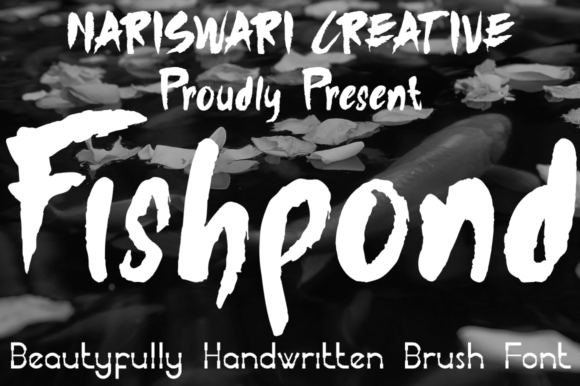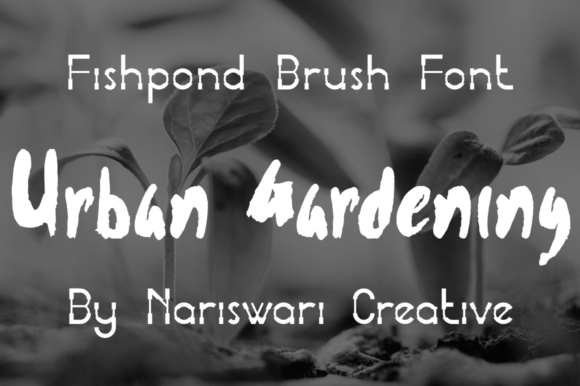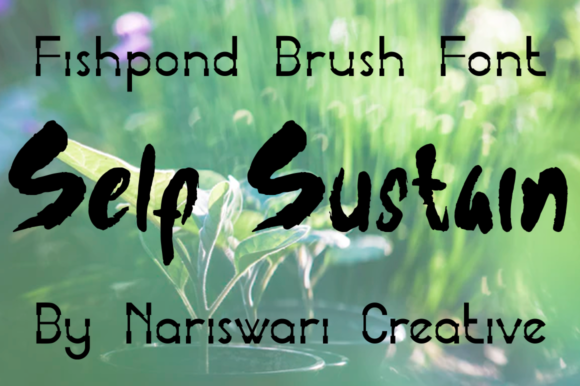
Fishpond Font
About Fishpond Font
Fishpond sounds like an intriguing and unique handwritten font that can add a touch of simplicity and creativity to various design projects. Let’s explore some creative ways to use Fishpond font and bring your ideas to life:
1. Book Titles: Use Fishpond font for book titles or chapter headings to create a visually appealing and engaging cover design.
2. Handmade Product Labels: Apply Fishpond font to design labels for handmade products, adding a personal and artistic touch to the packaging.
3. Artistic Posters: Create artistic posters with Fishpond font, combining it with illustrations or photography to convey a distinct and creative message.
4. Children’s Book Illustrations: Use Fishpond font in children’s book illustrations to evoke a sense of playfulness and capture the attention of young readers.
5. DIY Craft Projects: Incorporate Fishpond font in DIY craft projects, such as handmade greeting cards, scrapbooking, and gift tags.
6. Social Media Graphics: Apply Fishpond font to your social media posts and graphics to create a unique and eye-catching visual identity.
7. Nature-Themed Designs: Use Fishpond font in designs related to nature, wildlife, or outdoor activities, accentuating the natural and organic feel.
8. Journaling: Add Fishpond font to journal entries or bullet journal designs to create a personalized and expressive layout.
9. Handwritten Quotes: Create inspiring quote graphics with Fishpond font, pairing it with meaningful quotes for a motivational touch.
10. Website Headers: Use Fishpond font in website headers or banners to give your online presence a handcrafted and artistic look.
11. Restaurant Menus: Apply Fishpond font to casual or quirky restaurant menus, adding a touch of creativity and uniqueness to the dining experience.
12. Nature Photography Overlays: Use Fishpond font to add captions or artistic overlays to nature or landscape photography.
13. Artistic Prints: Create artistic prints featuring calligraphy or typography art with Fishpond font, suitable for framing and display.
14. Handcrafted Signage: Design handcrafted signage for events or storefronts using Fishpond font, adding a personalized and artistic touch.
15. Personal Branding: Incorporate Fishpond font in personal branding materials, such as business cards or letterheads, to reflect individuality and creativity.
16. T-shirt Designs: Use Fishpond font in T-shirt designs, combining it with illustrations or graphics to create unique and expressive apparel.
17. Handwritten Invitations: Design handwritten-style invitations using Fishpond font for events like birthdays, weddings, or parties.
18. Creative Packaging: Apply Fishpond font to creative packaging designs, adding a handcrafted and artistic element to the product presentation.
19. Art Exhibitions: Use Fishpond font in promotional materials for art exhibitions or gallery events, capturing the essence of creativity and expression.
20. Quirky Branding: Incorporate Fishpond font in branding materials for businesses that aim to convey a fun, quirky, or unique personality.
In summary, Fishpond font’s simplicity and uniqueness make it an excellent choice for a wide range of design projects, from book covers to social media graphics and DIY crafts. Embrace the creativity of Fishpond font and discover how it can infuse your creative ideas with a touch of handcrafted charm, making them truly come alive!